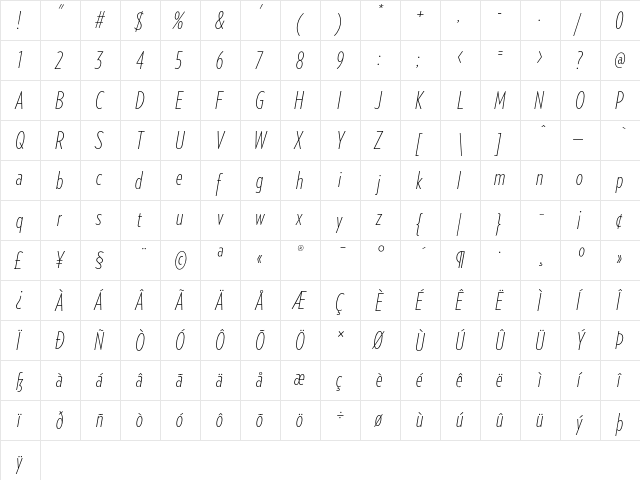
Verlag Compressed Extra Light Italic
| Foundry | Hoefler & Frere-Jones |
| Designer | Hoefler & Frere-Jones |
Design Context for Verlag Compressed Typeface
Verlag Compressed is a composed and adaptable typeface that performs quietly and consistently across a wide range of design contexts. The slanted form adds forward momentum and visual energy. The delicate stroke weight brings airiness and refinement to layouts.
Pro Tip: Use Verlag Compressed for emphasis, pull quotes, and subheadings where its slanted energy can add rhythm to the layout.